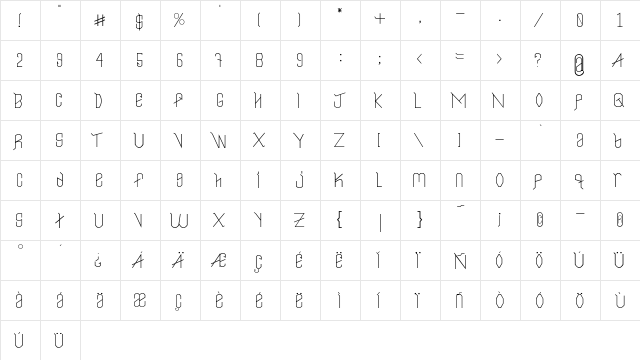
Neo LR Regular
Design Context for Neo LR Typeface
Neo LR is a composed and adaptable typeface that performs quietly and consistently across a wide range of design contexts.